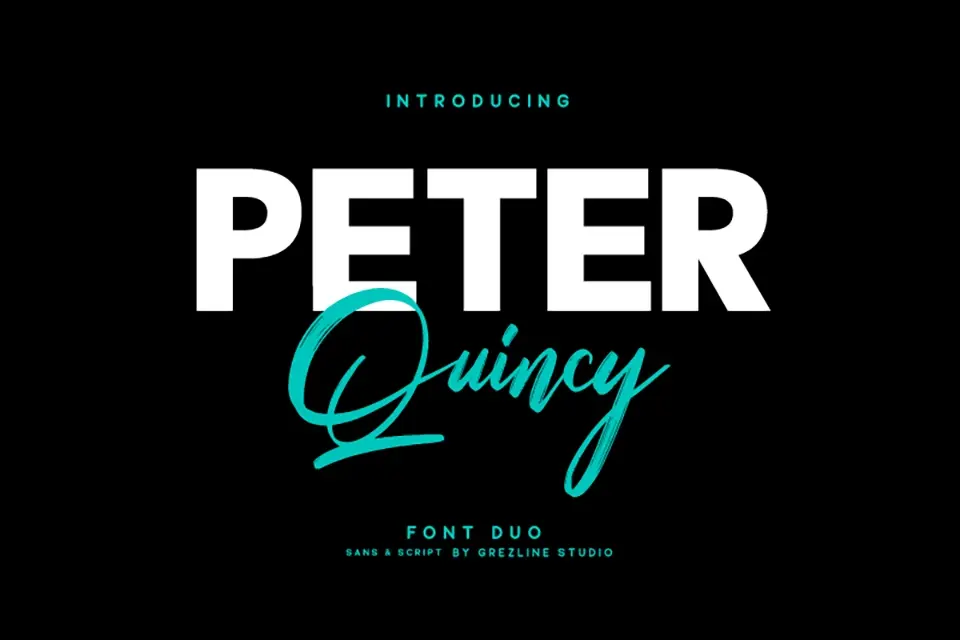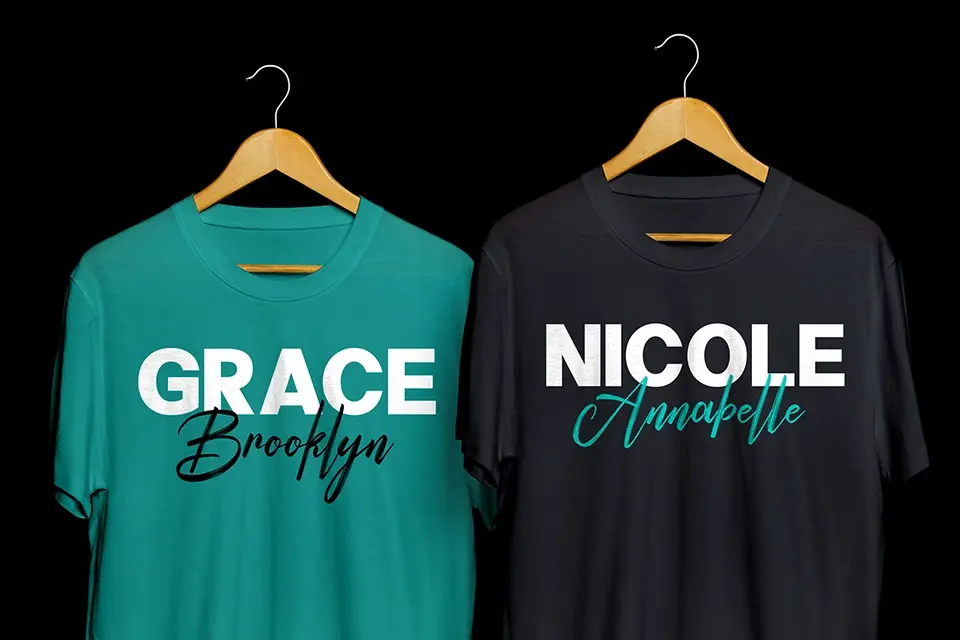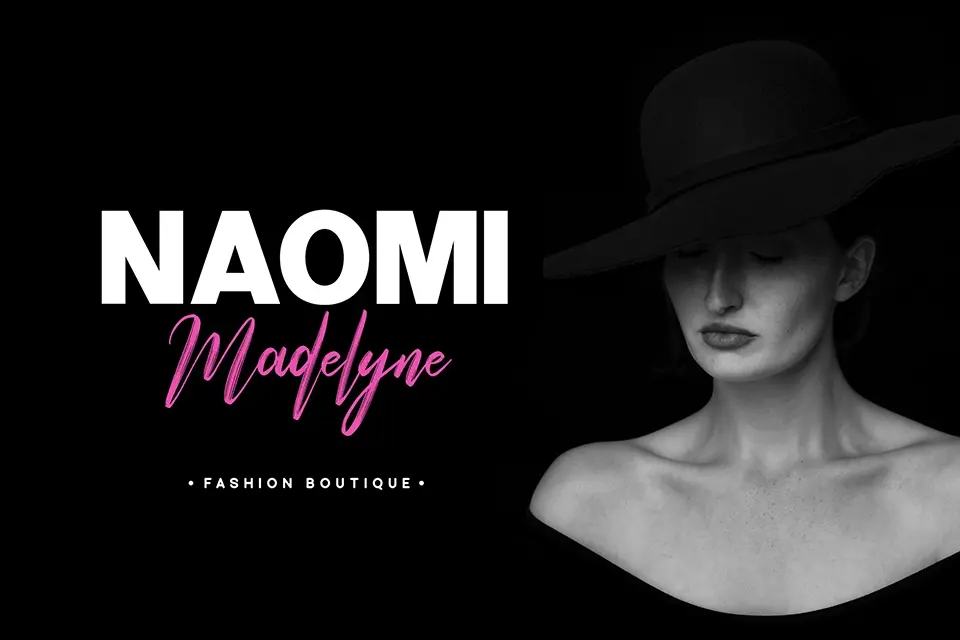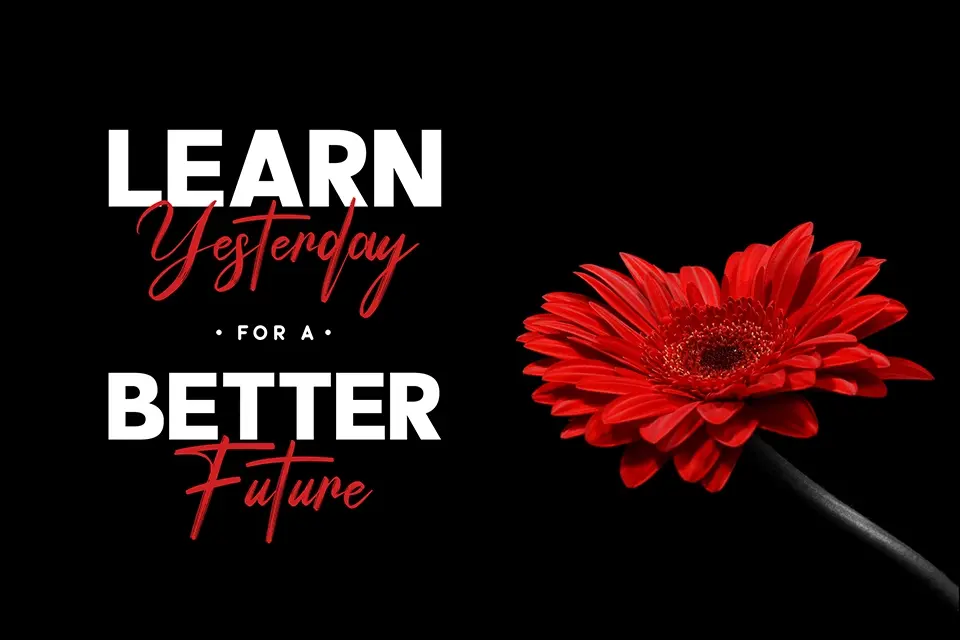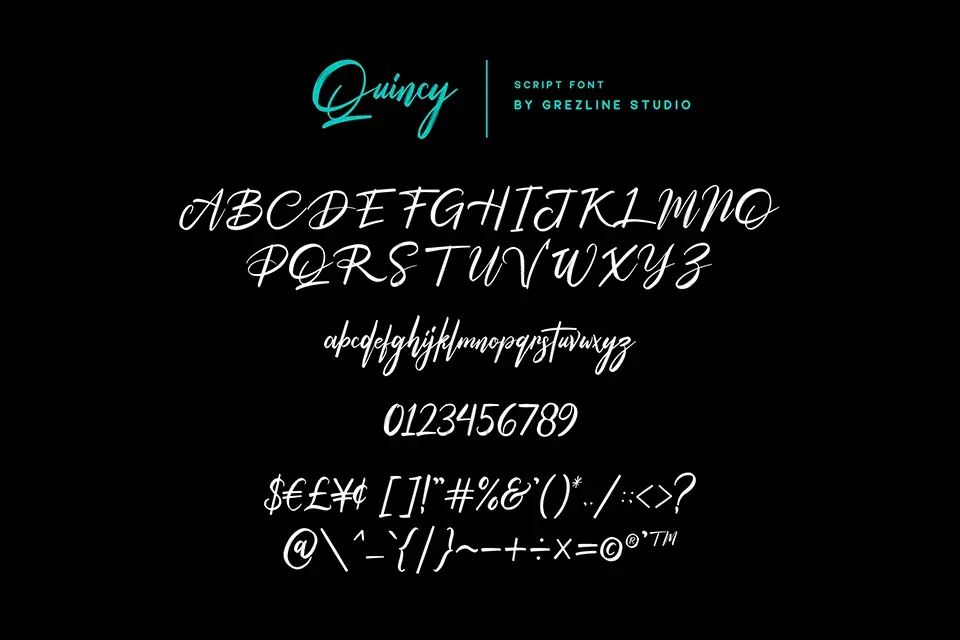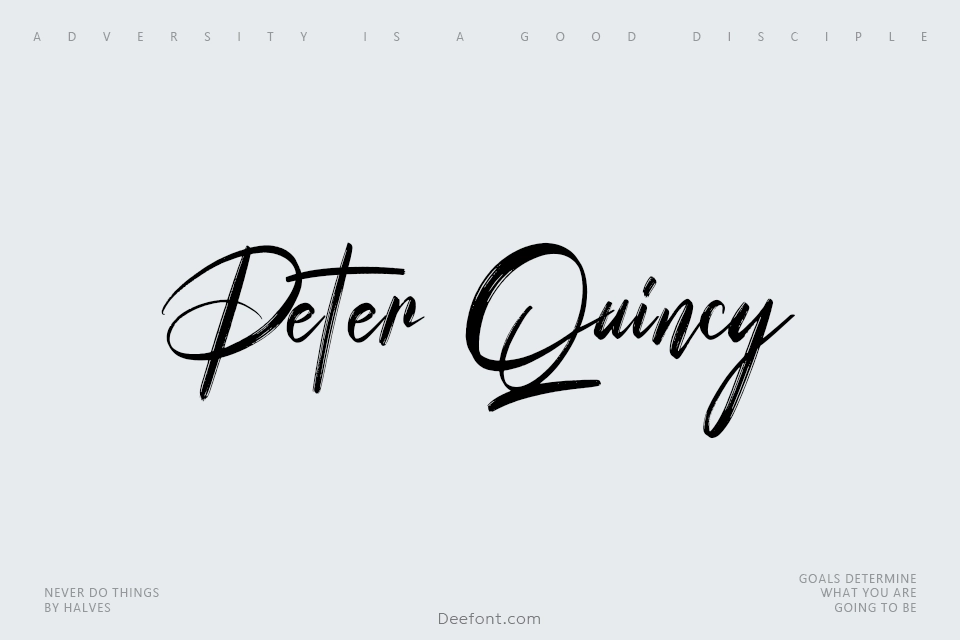
Peter Quincy Script Font
Peter Quincy is a captivating font duo featuring hand-drawn script and clean sans-serif styles. Designed for creative projects, it combines elegant, fluid script strokes with versatile sans-serif letterforms. Perfect for branding, packaging, invitations, typography, and design work requiring both sophistication and readability. The expressive script component adds personality and movement, while the sans-serif ensures cross-media compatibility.